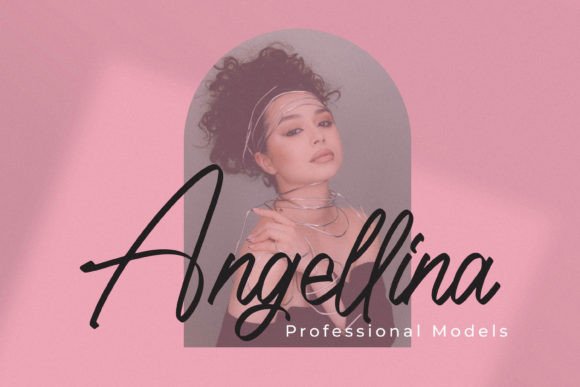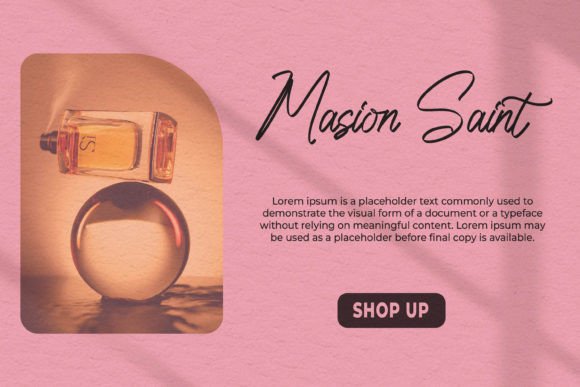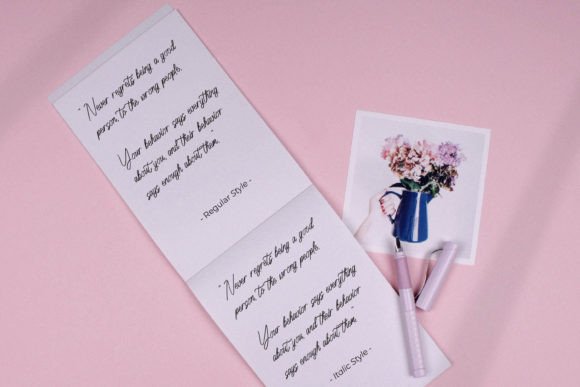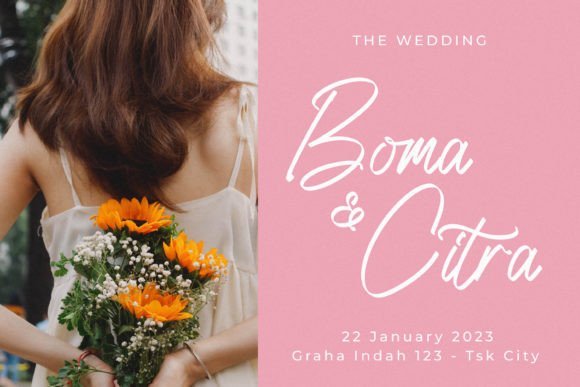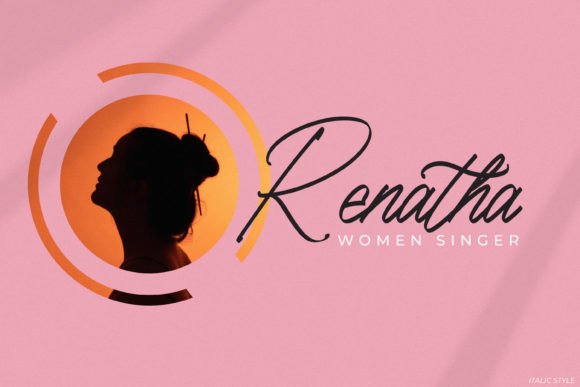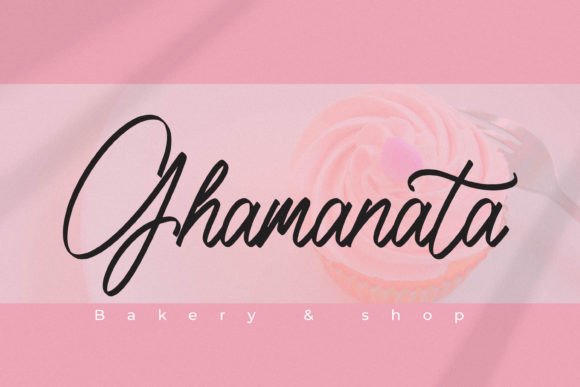
The Perfect Blend of Elegance and Whimsy: Introducing Gladiesky Font
As a designer, have you ever found yourself staring at a blank canvas, searching for that perfect font to bring your creative vision to life? It’s that moment of frustration and excitement when you stumble upon a font that speaks to you, and suddenly, your design ideas start flowing. For many, that font is the Gladiesky Font, an elegant and bold handwritten font that exudes sophistication and charm.
Gladiesky Font is more than just a pretty face; it’s a versatile tool that can be used to create stunning wedding invitations, beautiful stationery art, eye-catching social media posts, and so much more. Its unique blend of elegance and whimsy makes it a valuable asset for designers who want to add a touch of personality to their work.
- Unique Characteristics: Gladiesky Font features a unique blend of modern and vintage elements, with intricate details and subtle texture that adds a touch of elegance to any design.
Designer Review: Gladiesky Font
Overall, I’m underwhelmed by the Gladiesky Font. It tries to capture a unique aesthetic but falls short in several areas.
What works well: ✨ It’s great for titles and headings, as it adds a touch of elegance and sophistication. The font’s curves and flourishes work well in contexts where a more traditional serif font wouldn’t quite fit.
What doesn’t: ⚠️ The font’s inconsistent line spacing and letterform proportions make it difficult to read in body text. Additionally, the font’s design is overly reliant on ornamentation, which can make it come across as trying too hard to be unique.
Some of the limitations of the font include:
- Poor legibility in small sizes
- Difficulty in reproducing the font’s exact aesthetic across different platforms
- Limited support for languages other than English
Overall, I wouldn’t recommend using Gladiesky Font for large blocks of body text or for projects where readability is a top priority. However, it may be suitable for specific design contexts where its unique aesthetic can shine.
Tips for Getting the Most Out of Gladiesky Font
Use Gladiesky Font in bold or italic styles to add emphasis to your text.
Combine Gladiesky Font with other fonts to create a unique and visually appealing design.
Use Gladiesky Font in headings or titles to create a clear and concise hierarchy of information.
Use Gladiesky Font in branding and marketing materials, such as logos and business cards.
Use Gladiesky Font in digital products, such as e-books and mobile apps.
Use Gladiesky Font in presentations and reports to create a professional and polished look.
Alternatives to Gladiesky Font